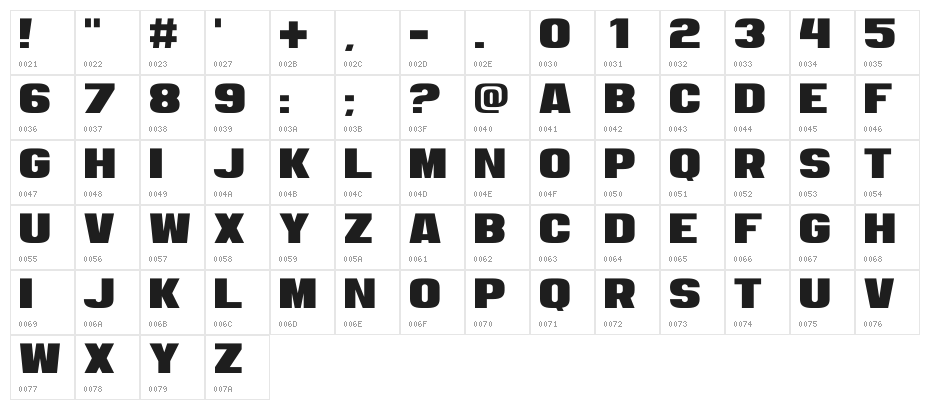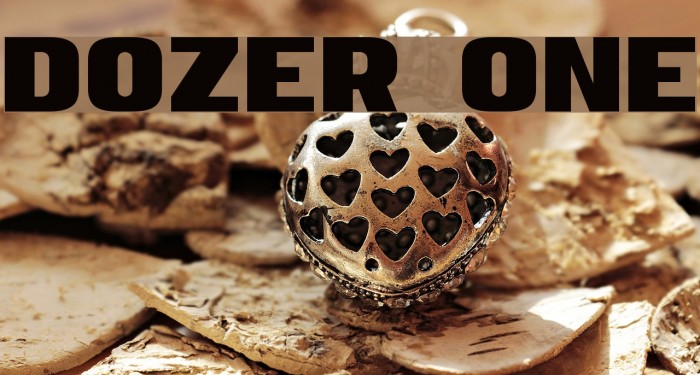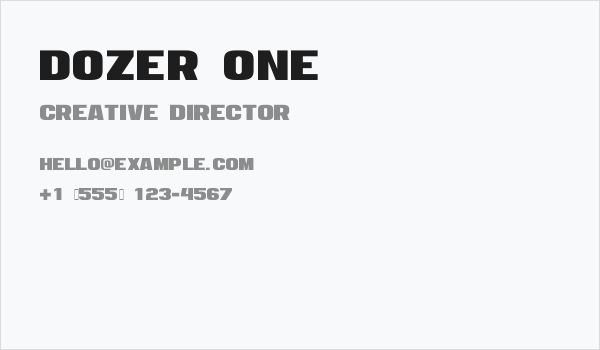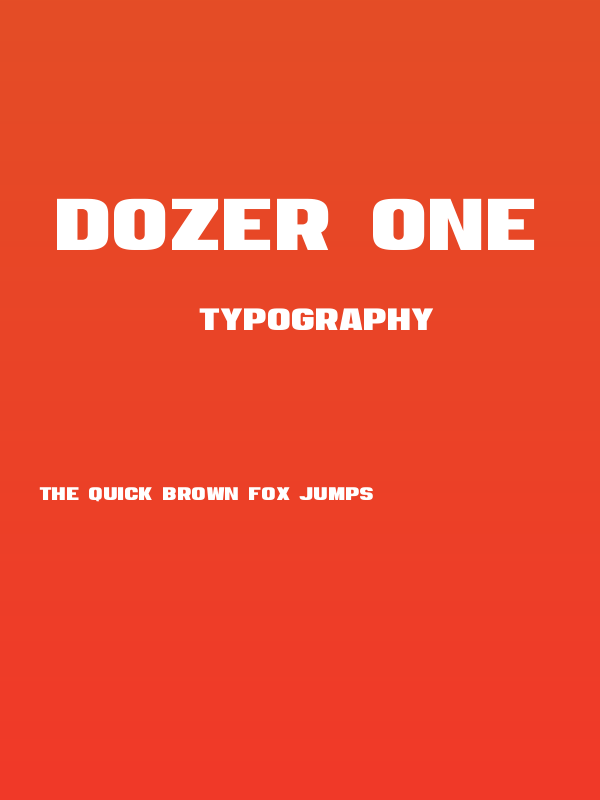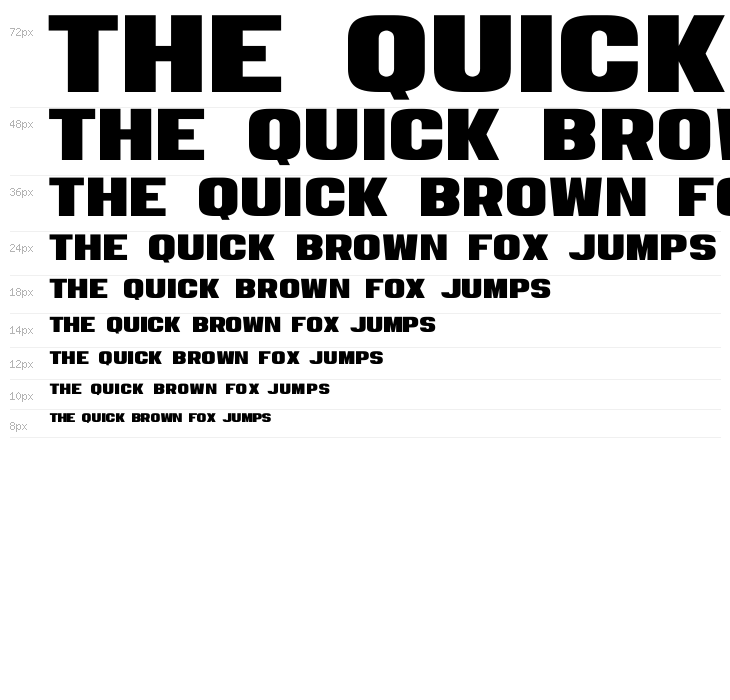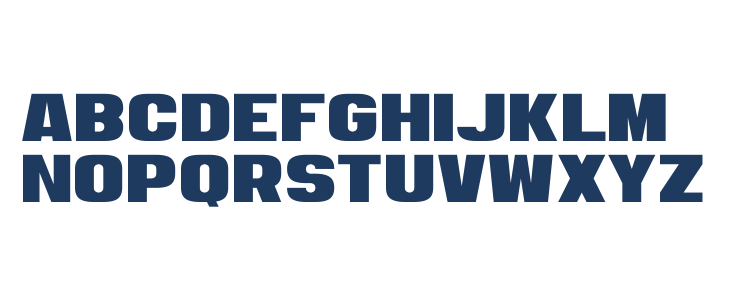
Dozer One Font
Dozer One Description
This bold and impactful typeface features thick, solid strokes that convey strength and authority. The characters are uniformly wide, with a consistent weight that gives the font a powerful presence. The uppercase letters are particularly striking, with a blocky, geometric design that ensures high visibility. The numbers and special characters maintain this robust style, making them ideal for attention-grabbing displays. The font's design is straightforward yet assertive, making it suitable for projects that require a strong visual impact.
Proposed ProjectsIdeal for headlines, posters, branding materials, and any project requiring a strong visual impact.